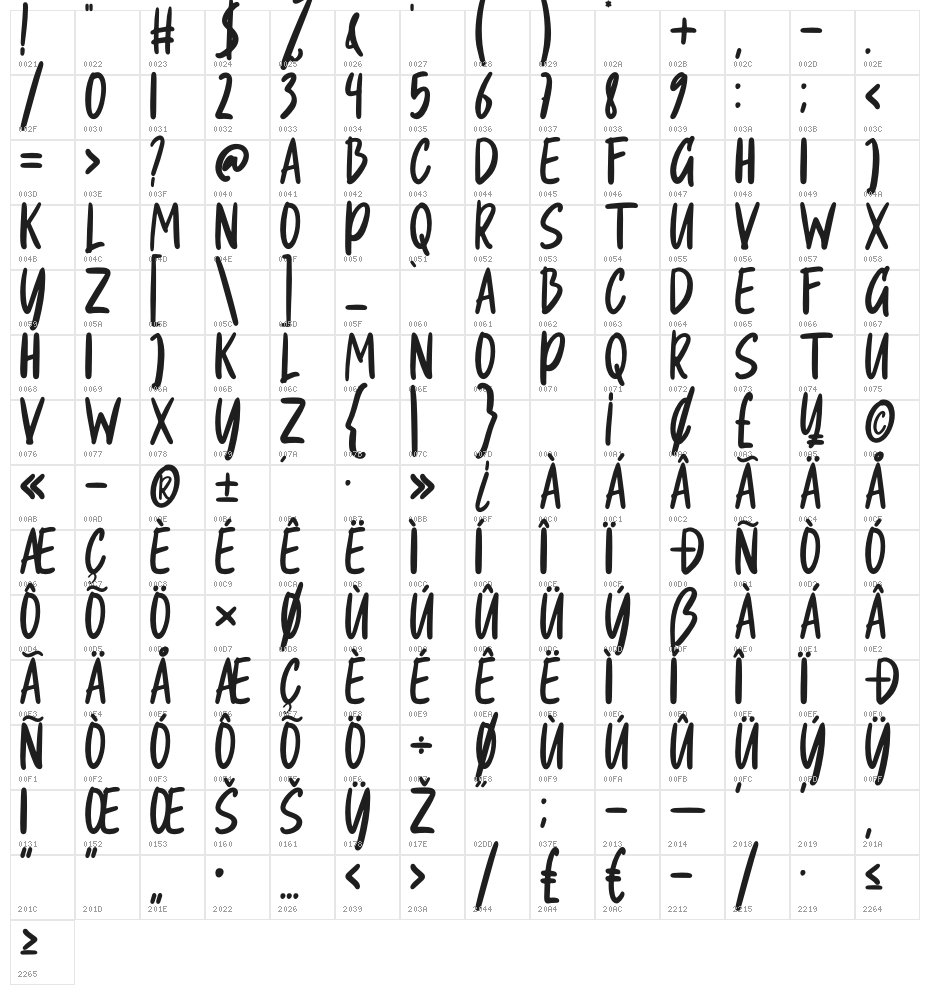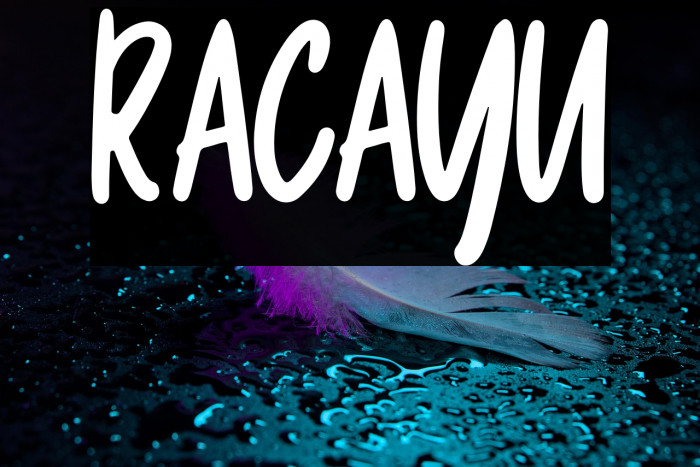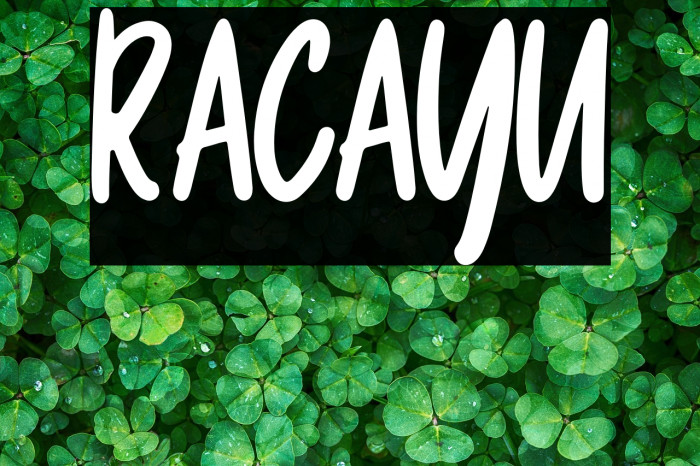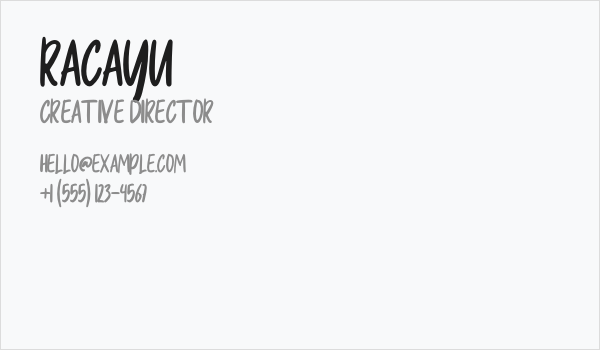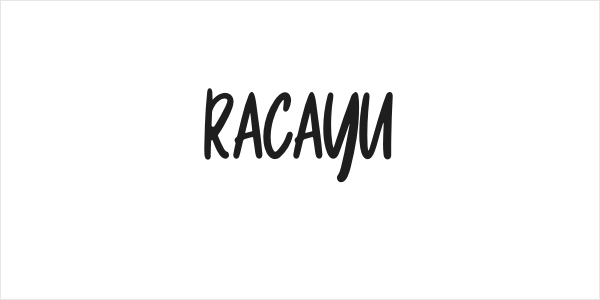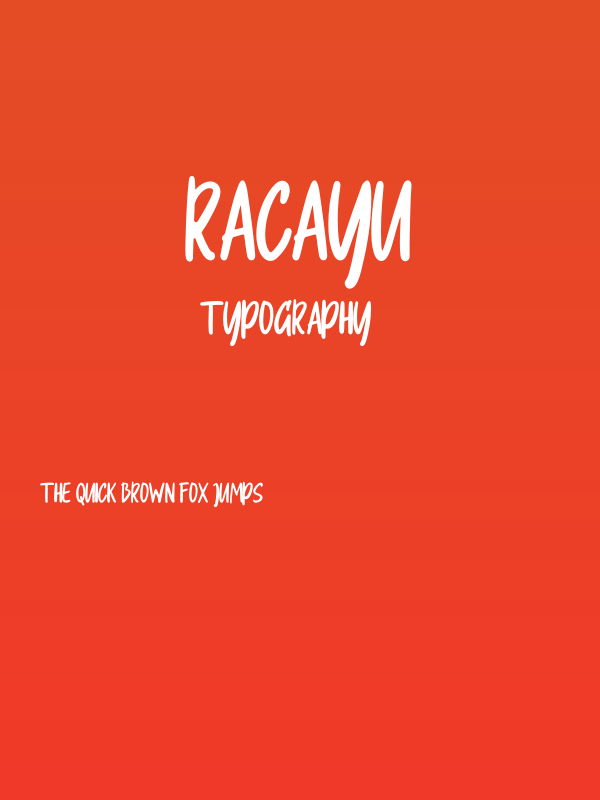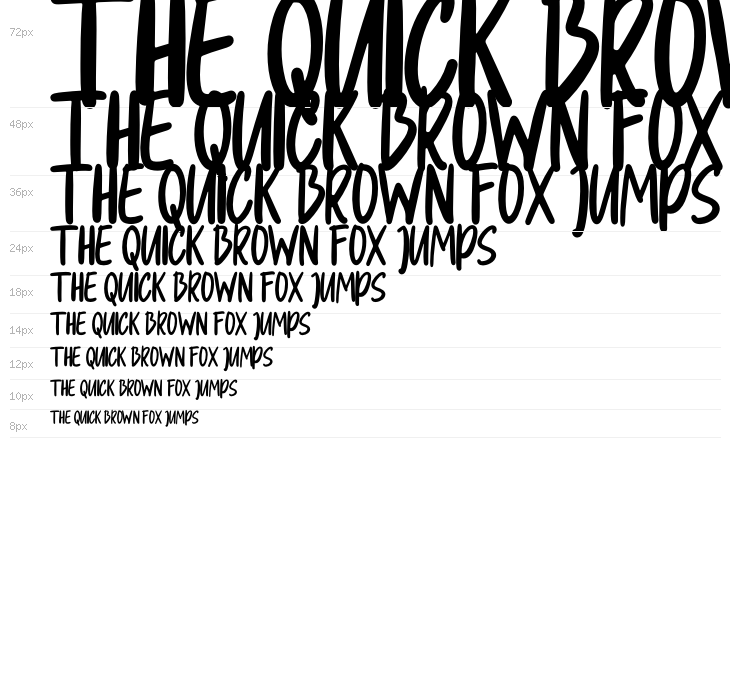
Racayu Font
Racayu Description
This font features a bold, handwritten style with a casual and energetic feel. The letters are slightly slanted, giving it a dynamic appearance. The strokes are thick and uniform, providing a strong presence on the page. The characters are closely spaced, enhancing the compact and cohesive look. The font includes both uppercase and lowercase letters, numerals, and a variety of special characters, making it versatile for different design needs. Its playful and informal style makes it suitable for creative projects that require a personal touch.
| Proposed Projects | Ideal for posters, greeting cards, social media graphics, and branding projects that require a personal and informal touch. |